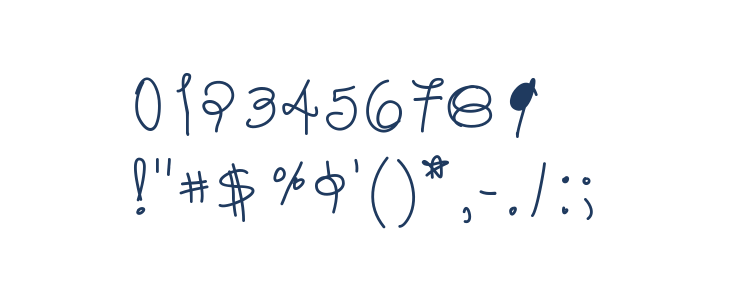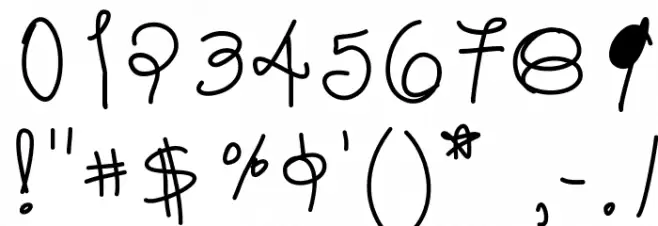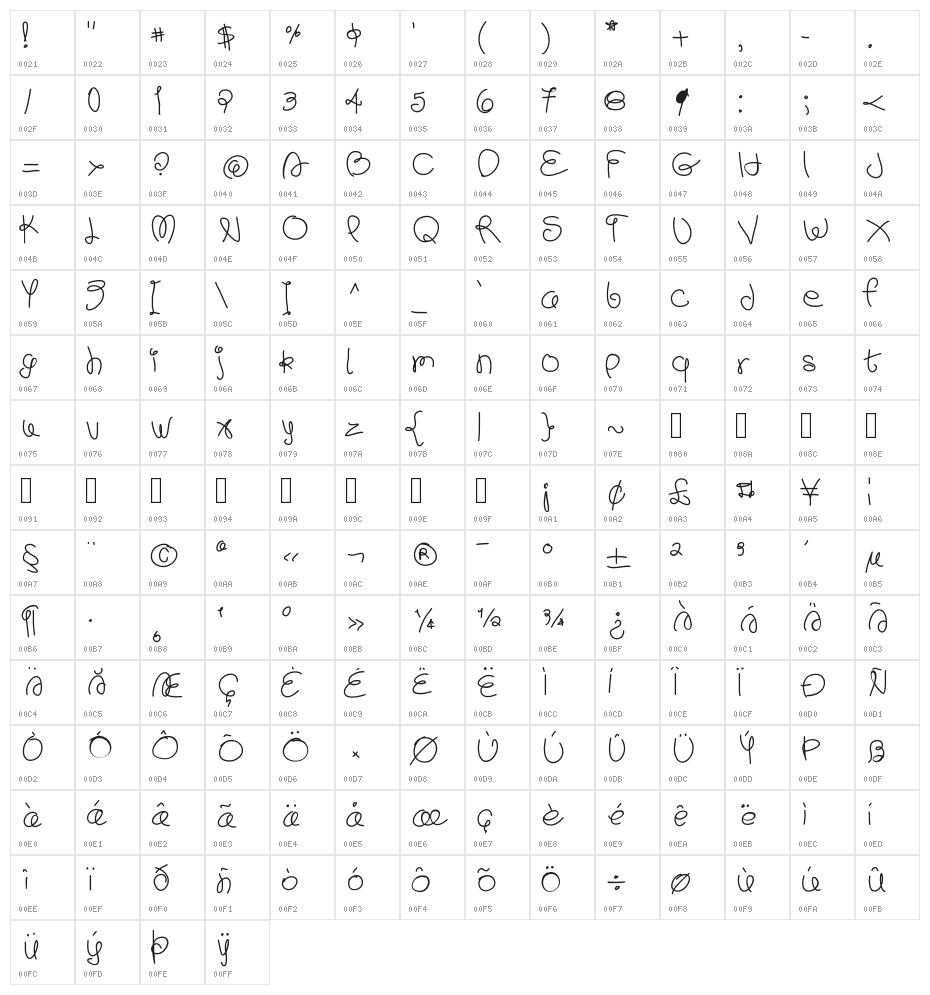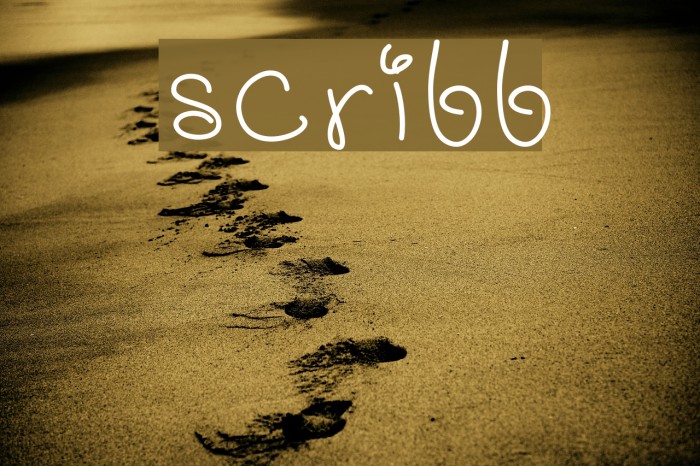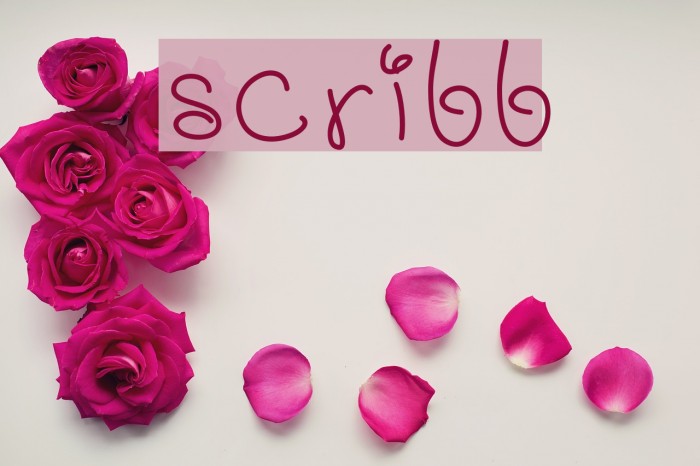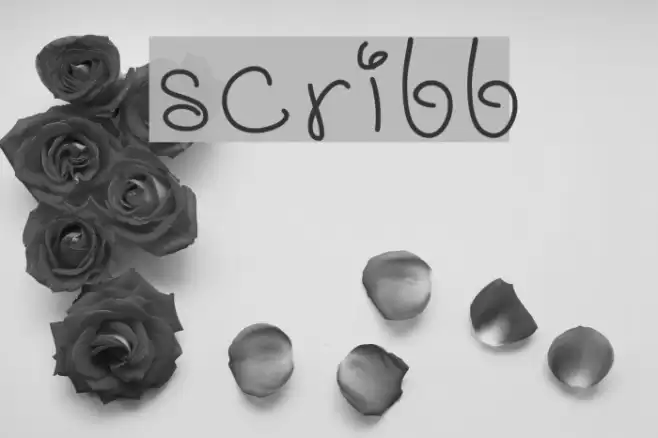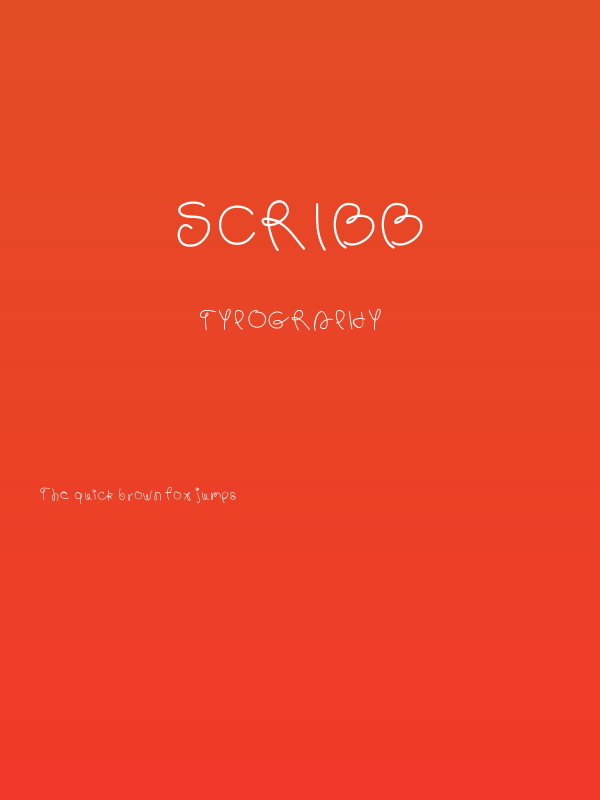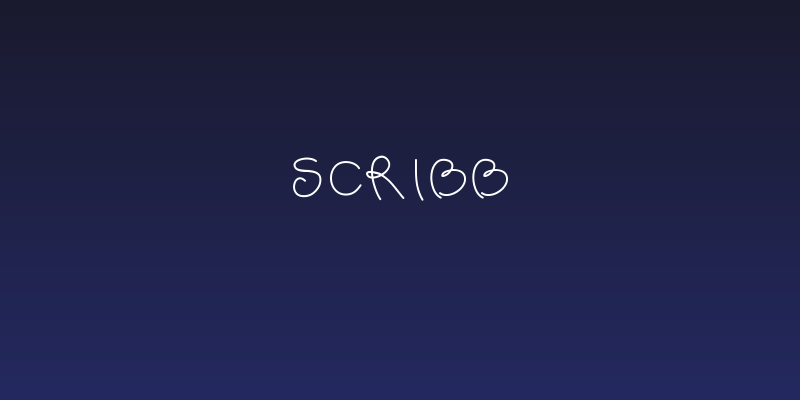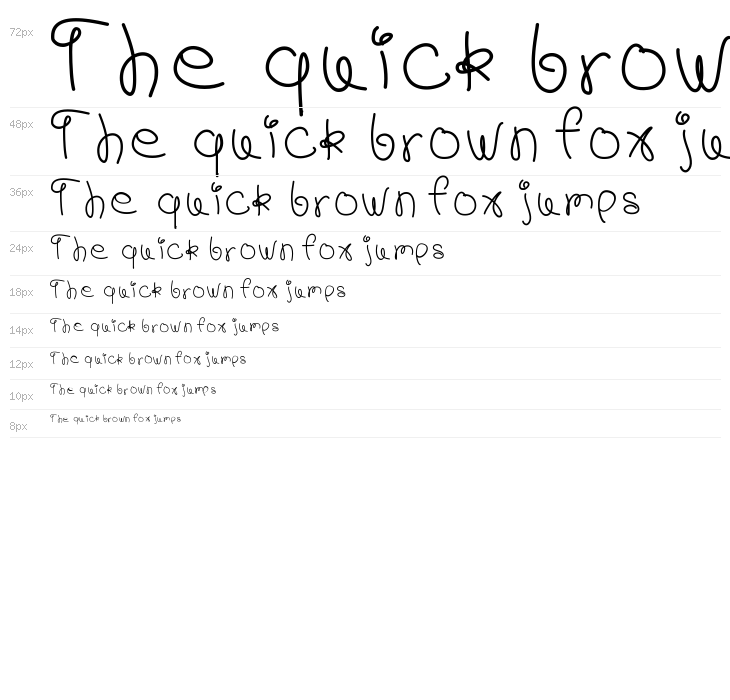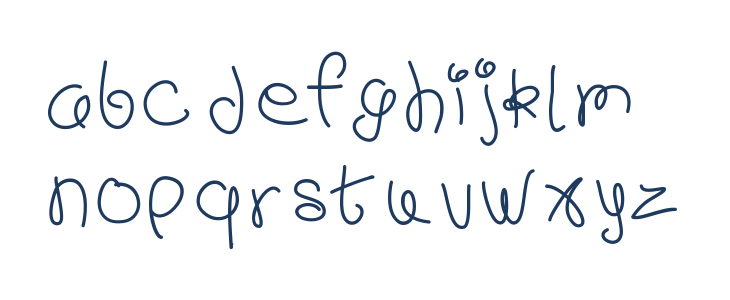
scribb Font
scribb Description
This playful and whimsical font features a handwritten style with a casual, flowing appearance. The letters are characterized by their rounded forms and slightly irregular lines, giving them a friendly and approachable feel. The uppercase and lowercase letters maintain a consistent style, with a slight slant that adds to the informal nature of the font. The numbers and special characters follow the same playful design, making them suitable for creative projects. The overall look is dynamic and lively, perfect for adding a personal touch to any design.
| Proposed Projects | Ideal for greeting cards, children's books, playful branding, and informal invitations. |